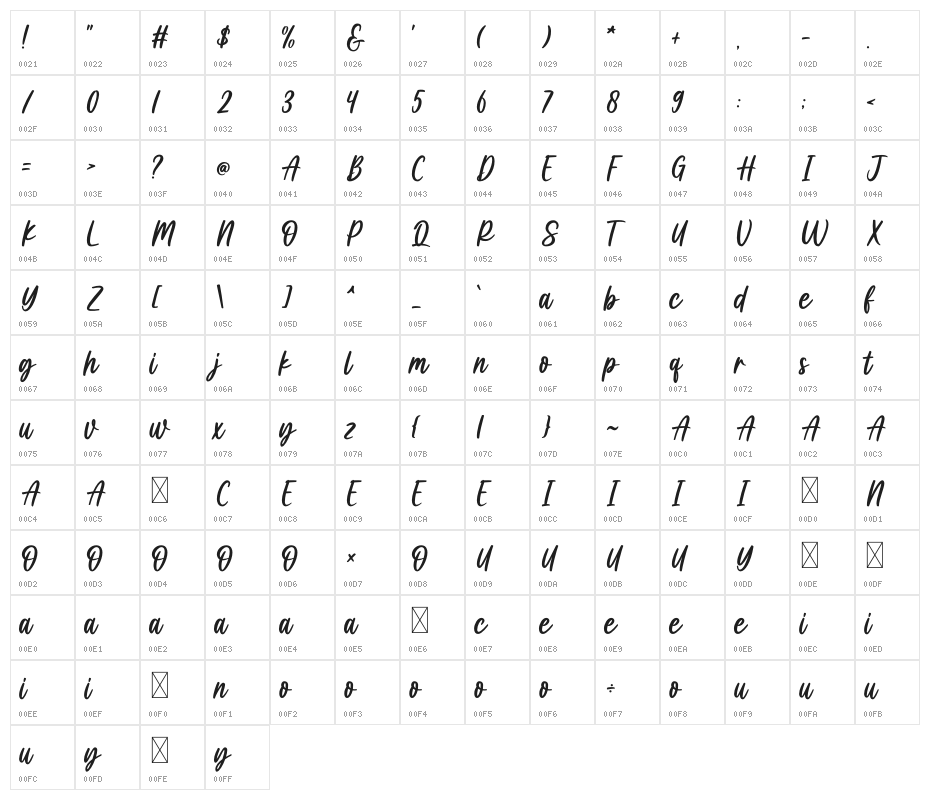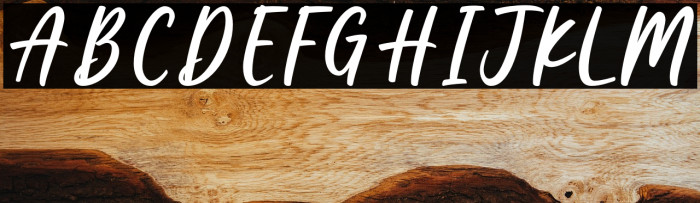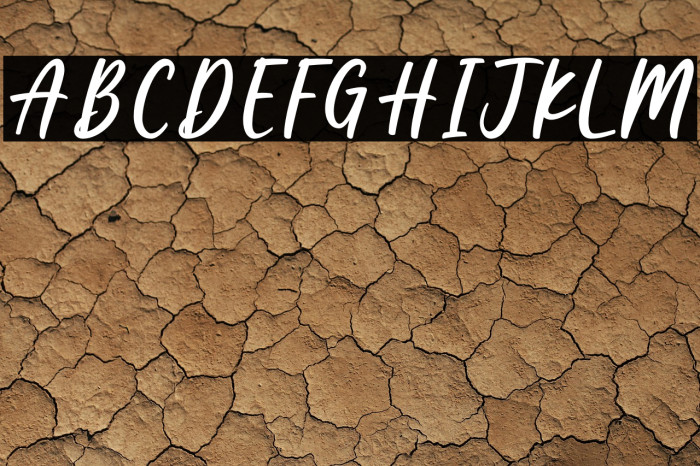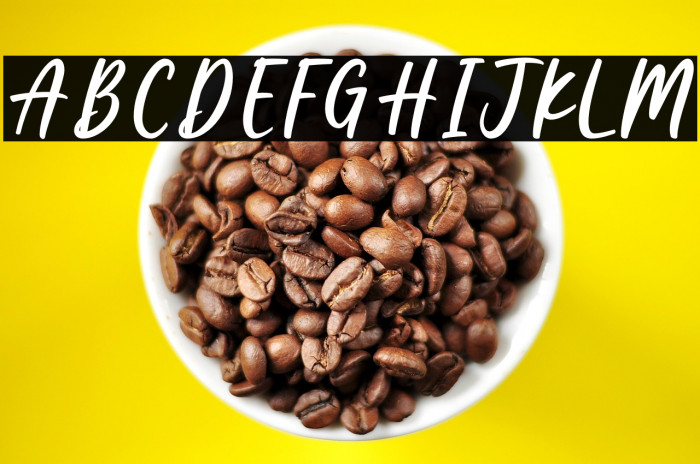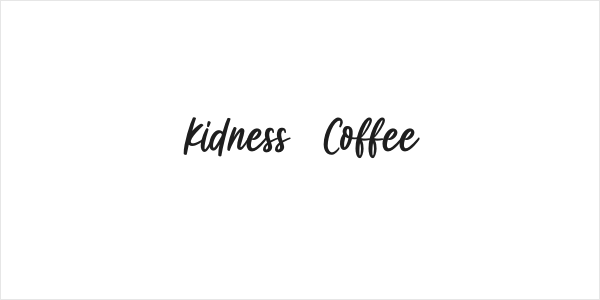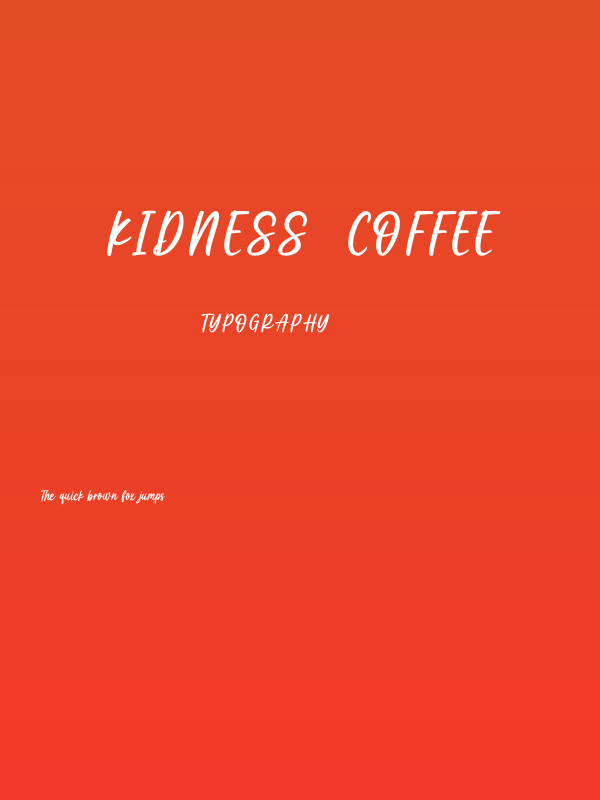
Kidness Coffee Font
Kidness Coffee Description
This font features a playful and energetic script style, characterized by its flowing, cursive letterforms. The strokes are smooth and slightly rounded, giving it a friendly and approachable appearance. The uppercase letters are bold and dynamic, while the lowercase letters maintain a consistent rhythm, enhancing readability. The numbers and special characters are designed to match the overall aesthetic, ensuring a cohesive look across all text elements. The font's style is reminiscent of casual handwriting, making it ideal for projects that require a personal touch.
| Overall Style | Casual |
| Use Case | Logos, Headlines, Invitations |
| Proposed Projects | Great for greeting cards, invitations, branding, and social media graphics. |